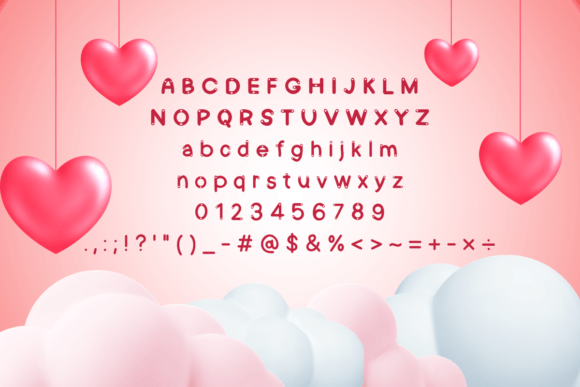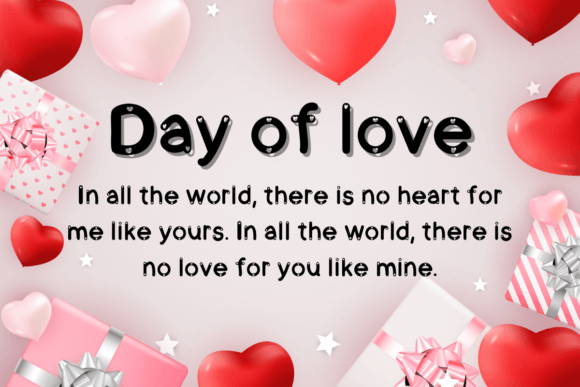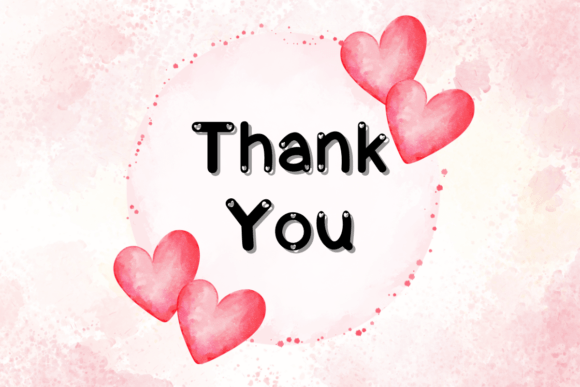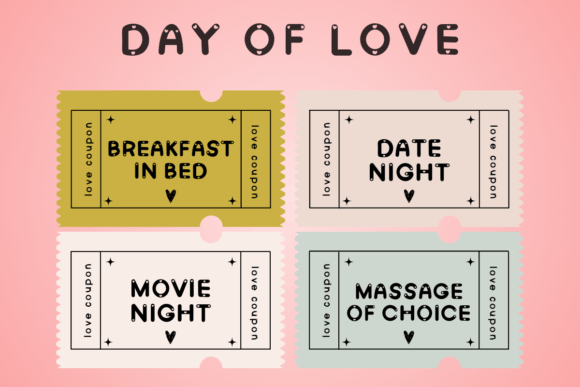
Introduction to Day of Love Font
Day of Love is a handwritten font.
You can use it for taking notes, writing a diary, or making greeting cards However, you can still use it for other designs such as banners content mugs cards shirts stationery social media posts, and more.
Key Features of Day of Love Font